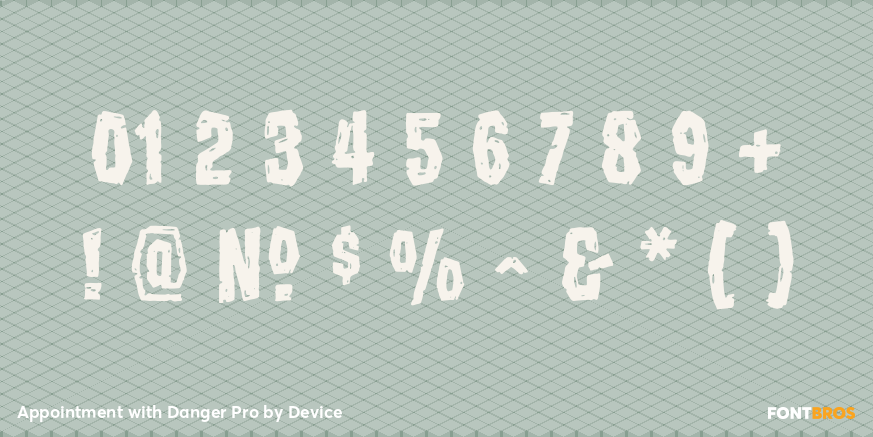
Appointment with Danger Pro
Font Family by Device
Appointment with Danger Pro is a distressed retro display font with a bold, cinematic attitude. Drawing on 1940s, 1950s, and 1960s visual cues, it delivers a worn-in, atmospheric look that feels dramatic, vintage, and a little rough around the edges.
Its special-effect styling makes it a strong fit for posters, title treatments, packaging, signage, and branding that needs a nostalgic edge. If you’re building work with mid-century tension, pulp-inspired character, or an aged print feel, this face brings that period mood forward quickly and convincingly.
Offered by Device as a single font style, it’s a focused choice for display use where texture and era-specific personality matter most.